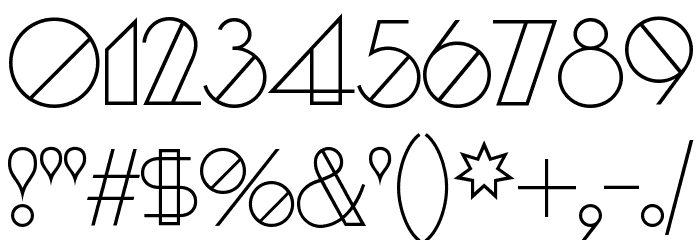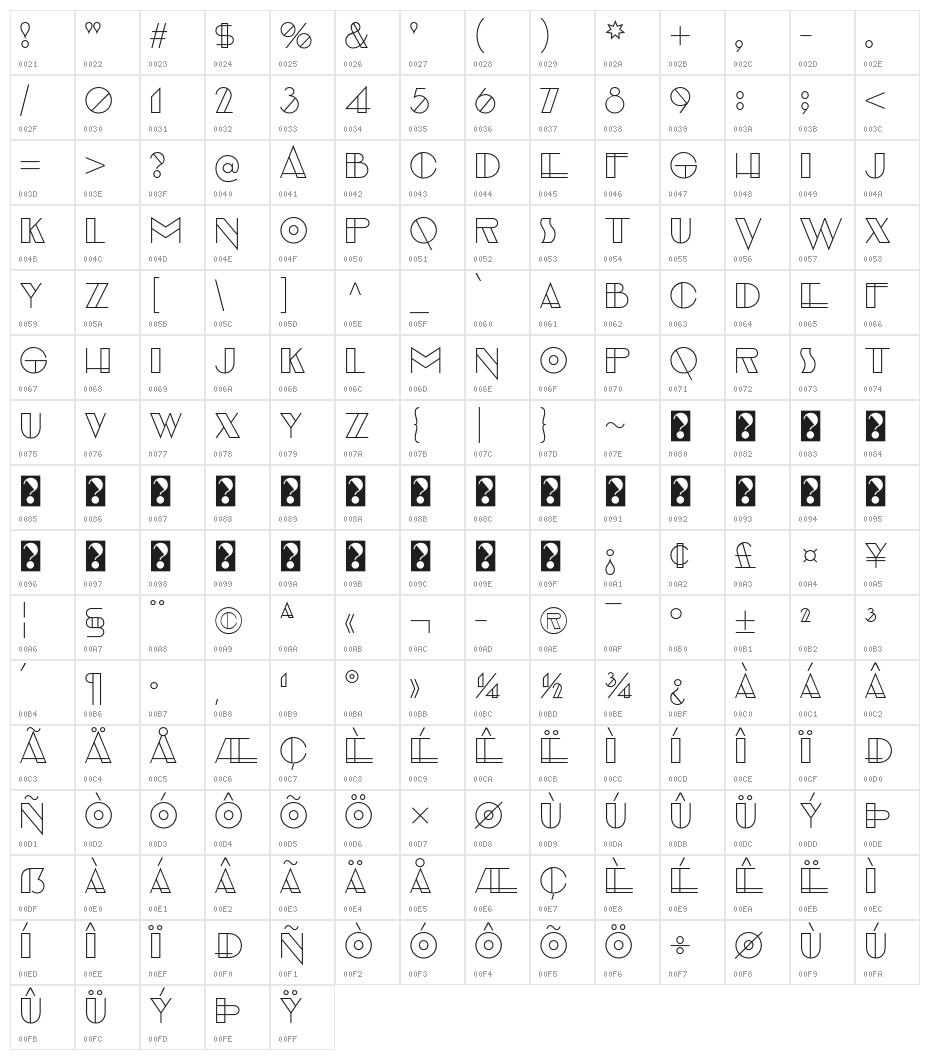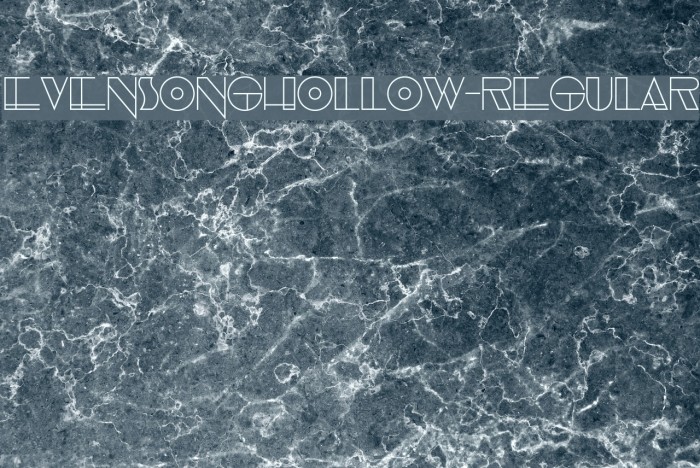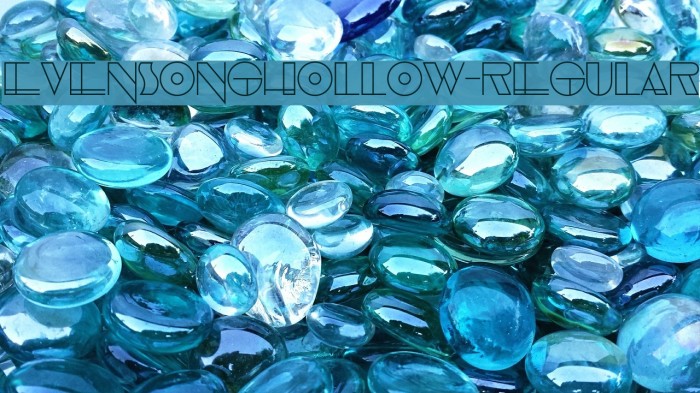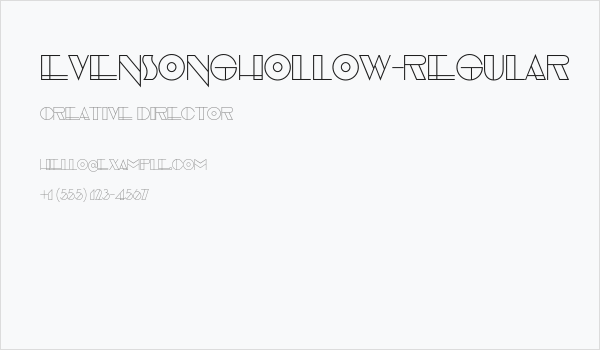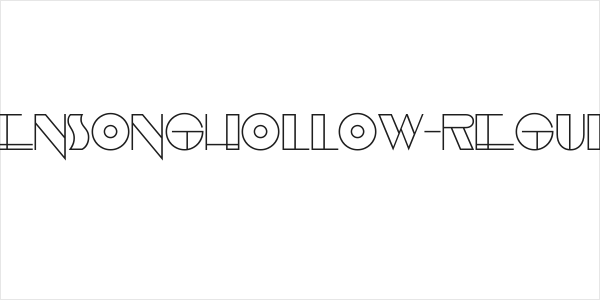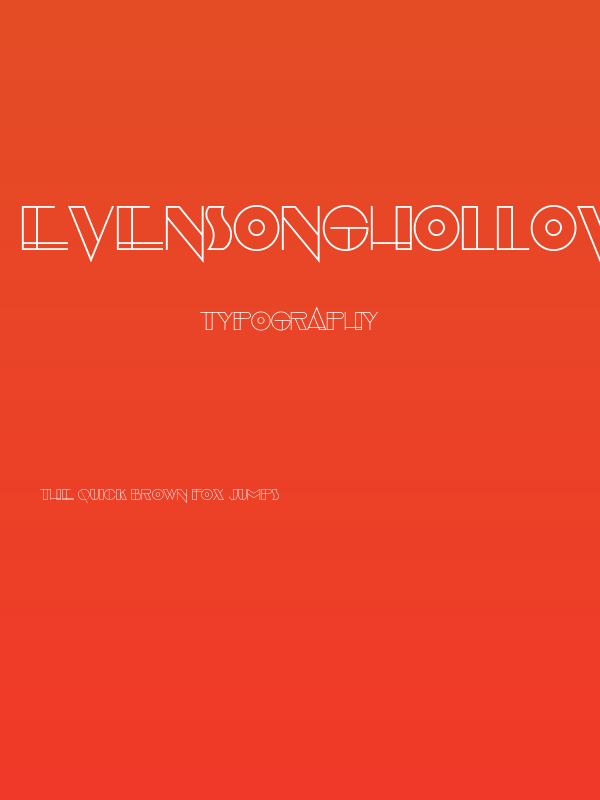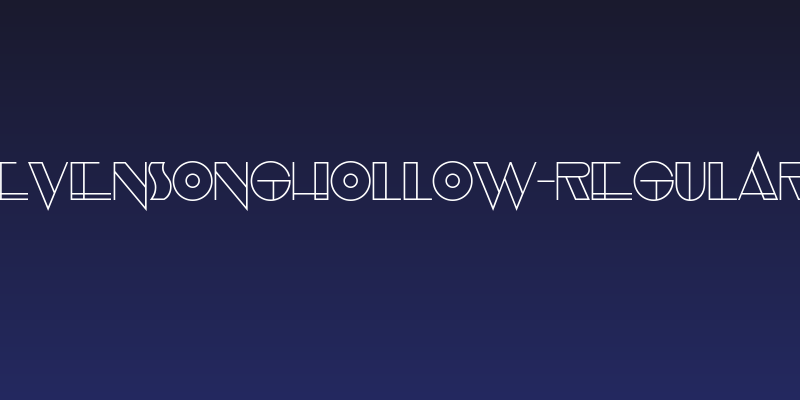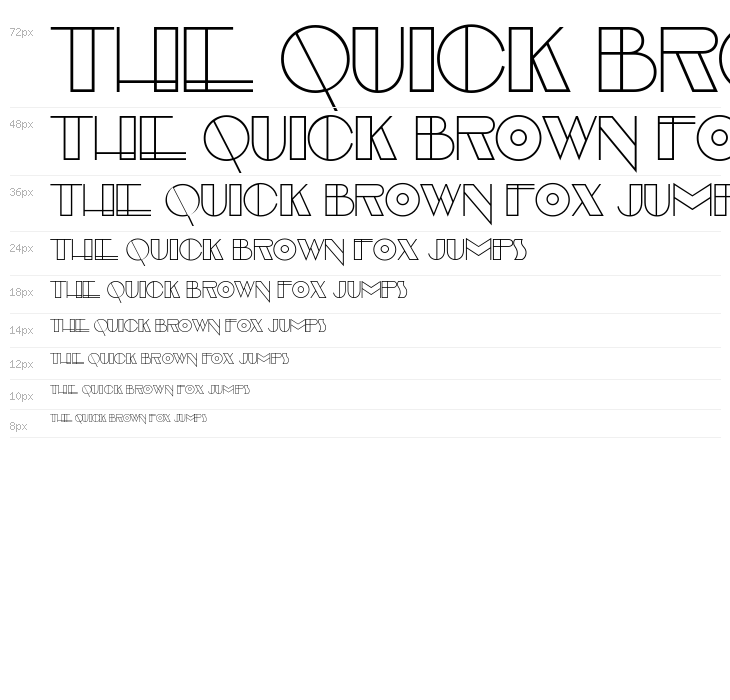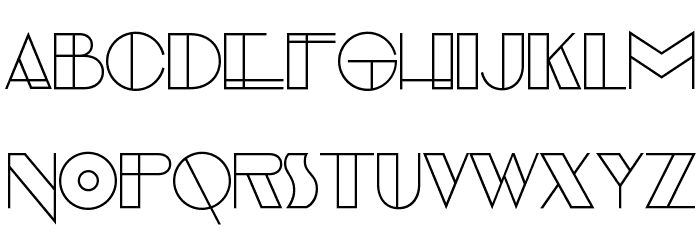
EvensongHollow-Regular Font
EvensongHollow-Regular Description
This font features a unique geometric design with a modern and artistic flair. The characters are constructed using a combination of straight lines and circular arcs, creating a sense of symmetry and balance. The uppercase letters exhibit a distinct architectural style, with some characters incorporating diagonal lines that intersect the main strokes. The lowercase letters maintain the geometric theme, offering a cohesive look across the typeface. Numbers and special characters are designed with the same attention to geometric precision, making them stand out with their bold and structured appearance. The overall design is both decorative and functional, suitable for projects that require a contemporary and stylish aesthetic.
| Proposed Projects | Ideal for branding, posters, album covers, and any project seeking a modern, artistic touch. |